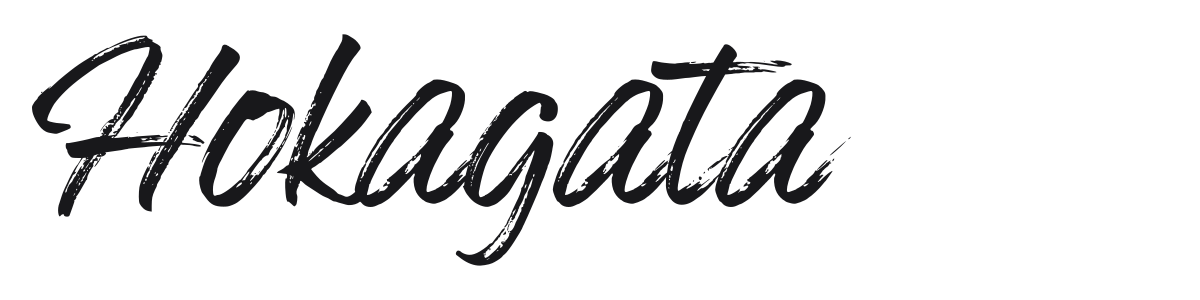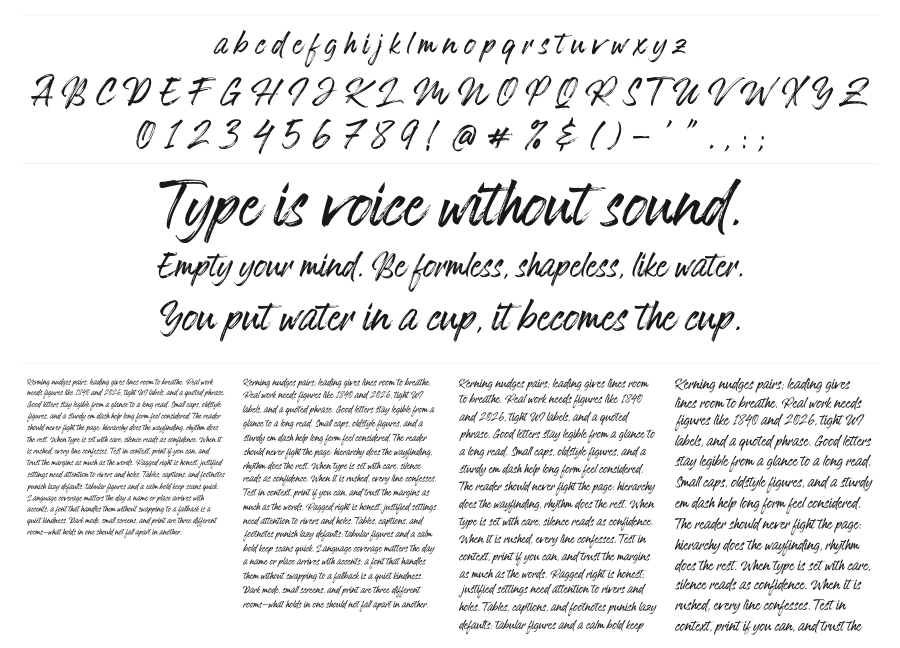
Hokagata
Hokagata is a bold brush script with heavy ink texture and dramatic stroke contrast that captures the energy of a real brush in motion. The bristled, rough-edged strokes give it an authentic handmade quality that separates it from cleaner calligraphic scripts. Strong for logos, posters, and anywhere a raw, expressive hand is needed.